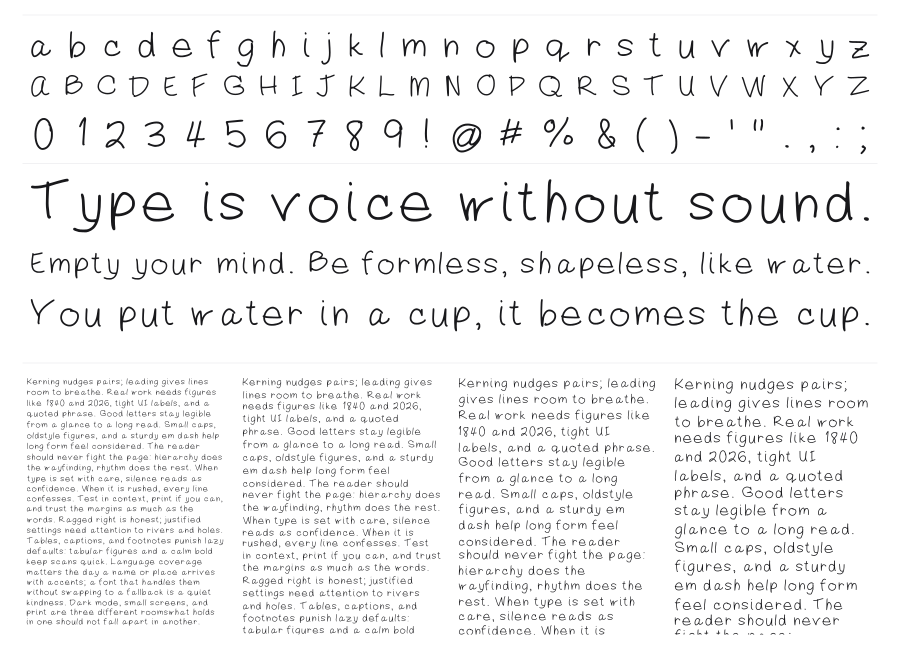
Mommy
by Ann Bennett
Mommy is a light, casual handwritten face by Ann Bennett with thin strokes and a slightly wobbly baseline that give it a genuine childlike quality. The letterforms feel personal and unforced, like a note scribbled on a napkin or a kid's birthday card. Best for informal projects, invitations, and friendly branding where warmth and playfulness matter more than precision.